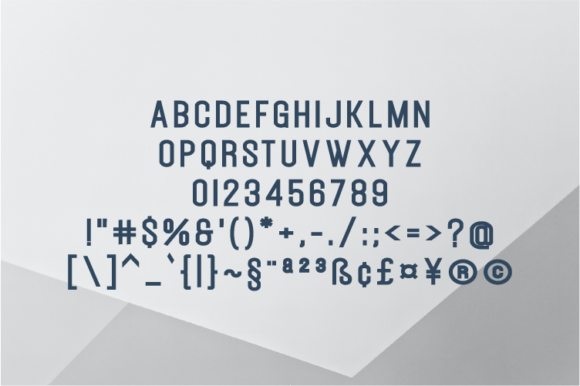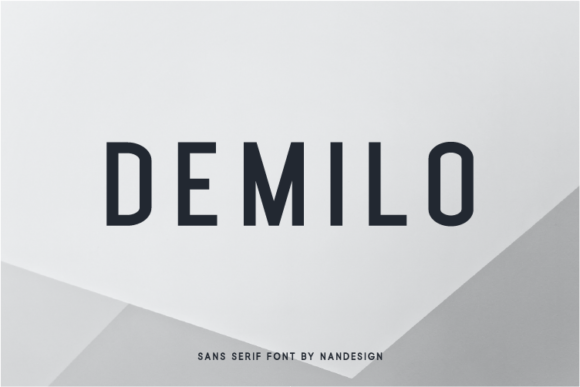
Introducing Demilo Font: The Ultimate Sans Serif for Modern Designs
Are you tired of using the same old fonts in your designs? Look no further than Demilo Font, a simple and casual sans serif font that’s taking the design world by storm. With its clean feel and beautiful arrangement of letters, Demilo is the perfect choice for both formal and non-formal designs.
What Makes Demilo Font Stand Out?
Demilo Font is a game-changer for designers and crafters alike. Its neat and organized structure makes it easy to read and understand, while its casual vibe adds a touch of friendliness to any design. Whether you’re working on a business card, brochure, or website, Demilo Font is sure to make your content stand out.
Key Features of Demilo Font
- Simple and Casual: Demilo Font boasts a simple and casual design that’s perfect for modern designs.
- Clean Feel: The font’s clean feel makes it easy to read and understand, even at small sizes.
- Neat Arrangement: The beautiful arrangement of letters in Demilo Font makes it perfect for both formal and non-formal designs.
- Sans Serif: As a sans serif font, Demilo is perfect for designs that require a clean and minimalist look.
Demilo Font is a versatile font that’s perfect for a wide range of design projects. Whether you’re a professional designer or a crafter, Demilo Font is a great choice for:
- Branding: Use Demilo Font to create a consistent brand image across all your marketing materials.
- Web Design: Demilo Font is perfect for website designs that require a clean and modern look.
- Print Design: Use Demilo Font for business cards, brochures, posters, and other print materials.
- Crafting: Demilo Font is also perfect for crafters who want to add a personal touch to their projects.
Why Choose Demilo Font?
With so many fonts available, why choose Demilo Font? Here are just a few reasons:
- Unique Look: Demilo Font has a unique look that’s sure to make your designs stand out.
- Easy to Read: The font’s clean feel and simple design make it easy to read and understand.
- Versatile: Demilo Font is perfect for a wide range of design projects, from formal to non-formal designs.
- Pair it with Other Fonts: Demilo Font pairs well with other sans serif fonts, such as Arial or Helvetica.
- Experiment with Sizes: Try using Demilo Font in different sizes to create visual interest.
- Use it for Headings: Demilo Font is perfect for headings and titles, but you can also use it for body text.
Demilo Font is a simple and casual sans serif font that’s perfect for modern designs. With its clean feel and beautiful arrangement of letters, Demilo is sure to make your content stand out. Whether you’re a designer or a crafter, Demilo Font is a great choice for a wide range of design projects. So why wait? Download Demilo Font today and take your designs to the next level!